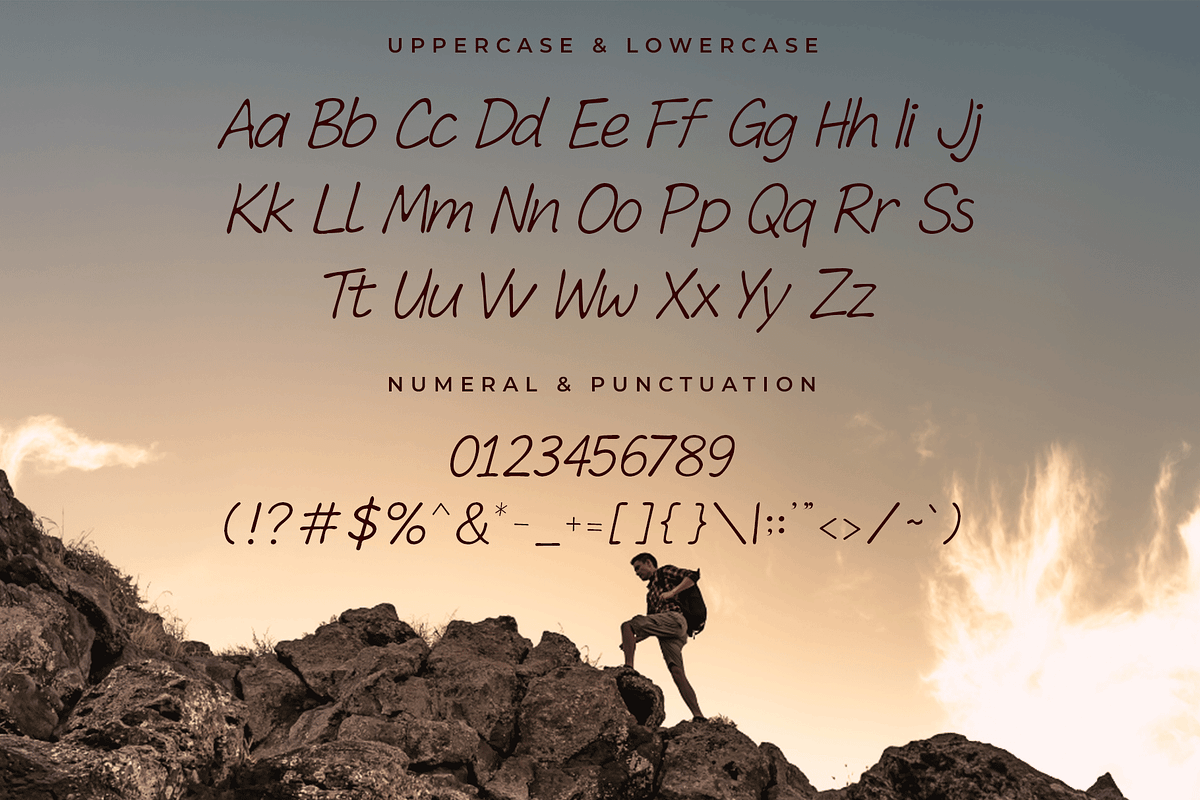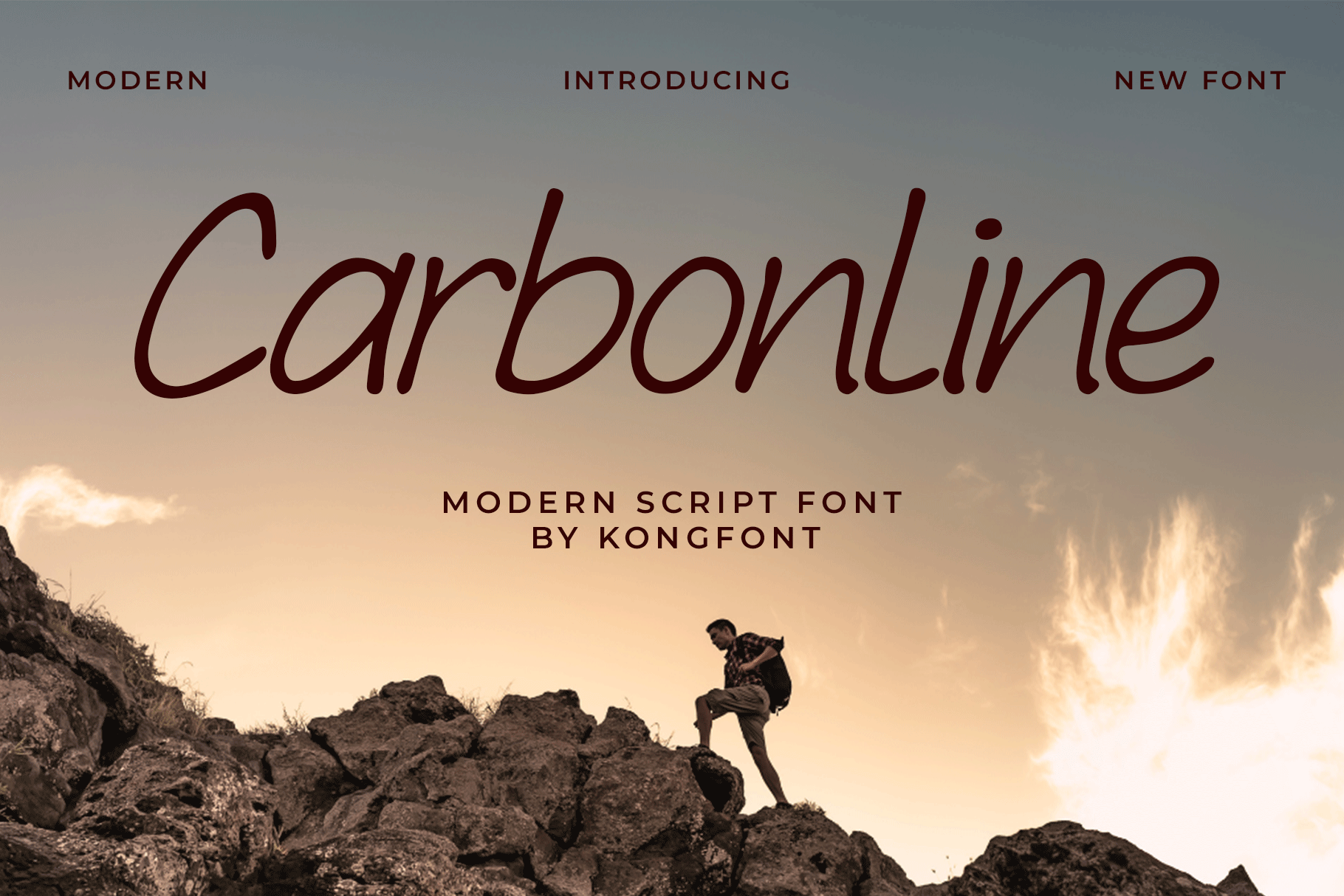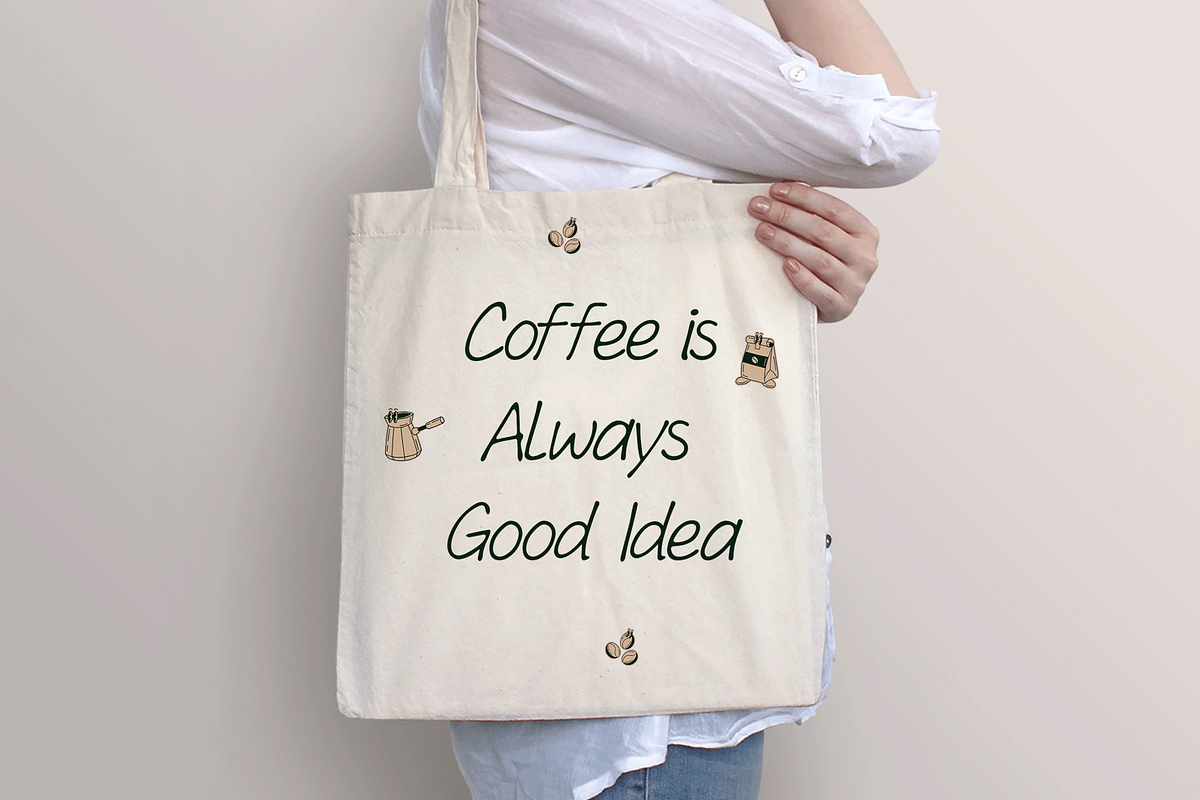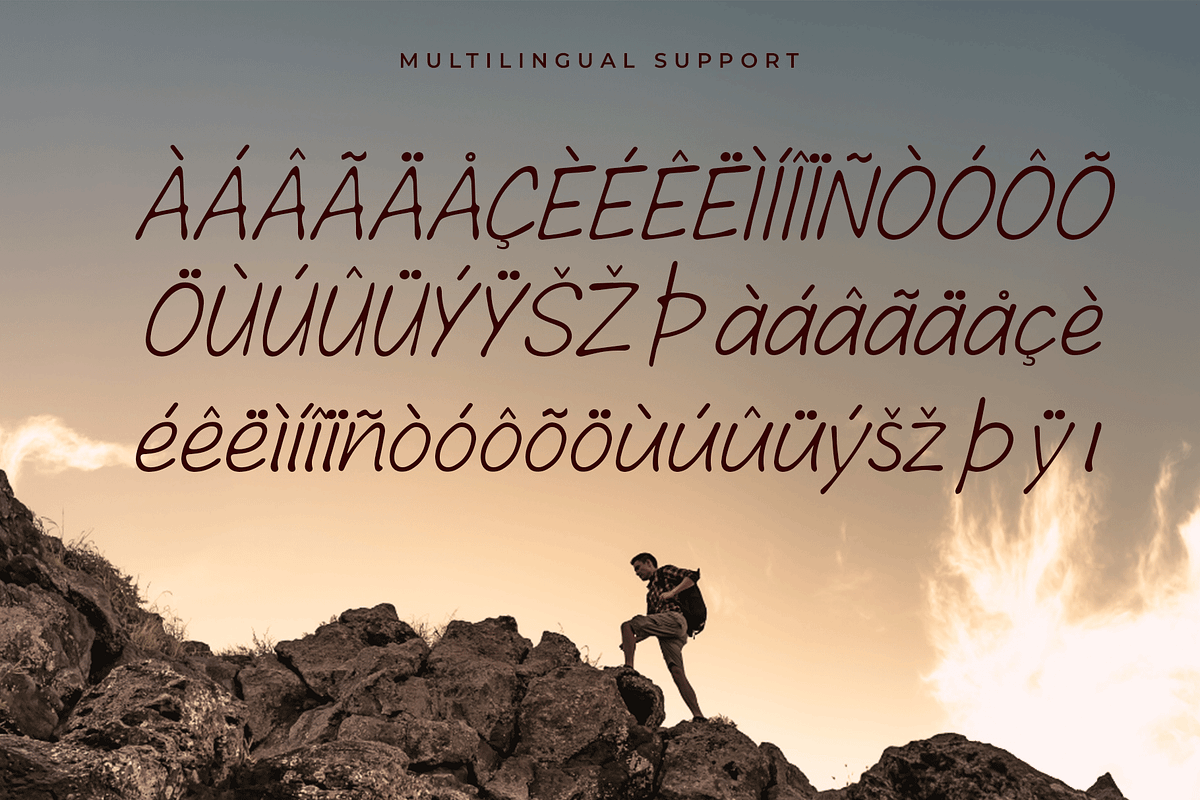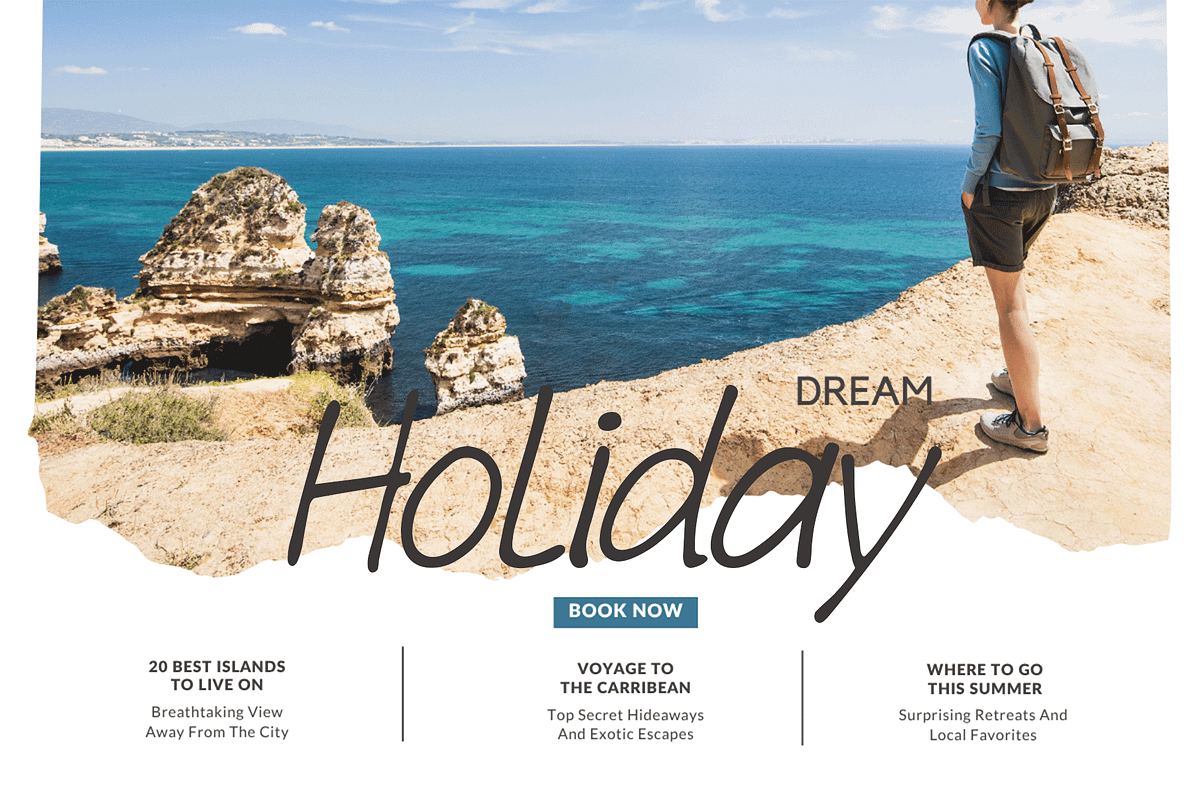
Carbonline – Modern Script Font
Carbonline is a sleek and stylish modern script font that blends fluid handwriting with contemporary sophistication. Designed to bring a natural yet polished look to your designs, Carbonline features smooth curves, elegant swashes, and graceful ligatures that enhance every word with personality.
Ideal for branding, logos, wedding invitations, social media graphics, packaging, and personal projects, Carbonline brings a warm, handwritten charm without sacrificing professionalism. Its flowing strokes are carefully balanced for readability and aesthetic appeal, making it versatile for both large displays and subtle signature touches.
From fashion branding to personal blogs, Carbonline is the script font that adds finesse and charm to every design.